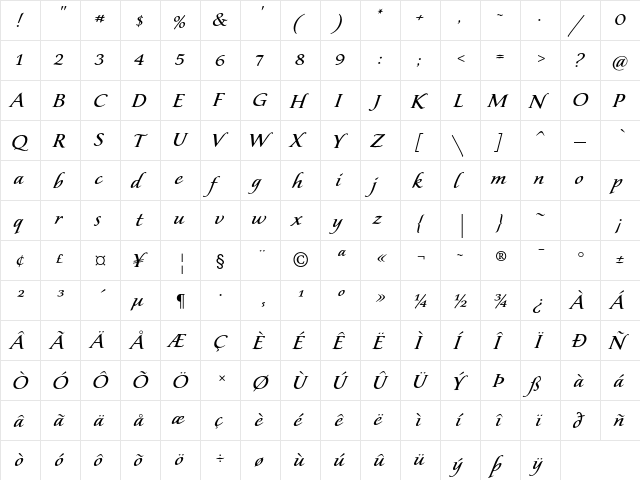
Florens LP Std Regular
| Designer | Garrett Boge |
Design Context for Florens LP Std Typeface
Florens LP Std takes a measured approach to typography — its balanced proportions and neutral character make it a reliable workhorse for both digital and print work.